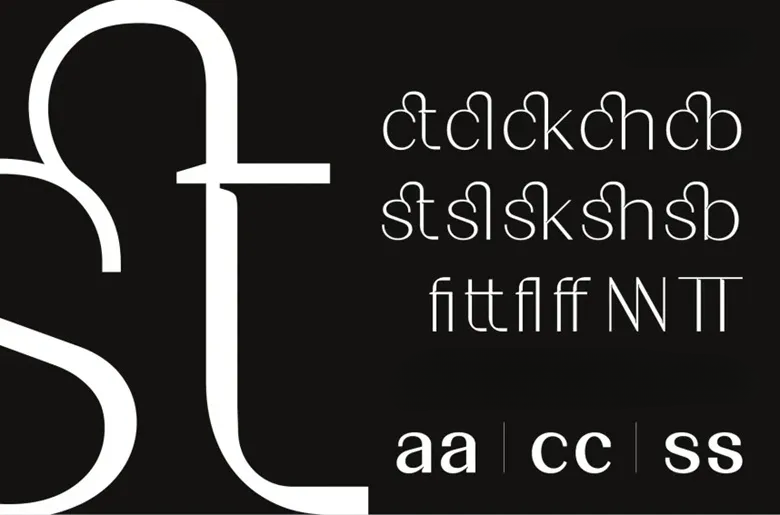
Velstra Font is a clean and modern sans serif typeface featuring smooth geometric shapes, even spacing, and a minimalist contemporary style. Its sleek futuristic inspired appearance gives every design a fresh, professional, and polished look.
This font is a great choice for corporate branding, website headers, mobile app interfaces, logo designs, business cards, and creative projects that need a clean and sophisticated visual identity.
StyleSans Serif